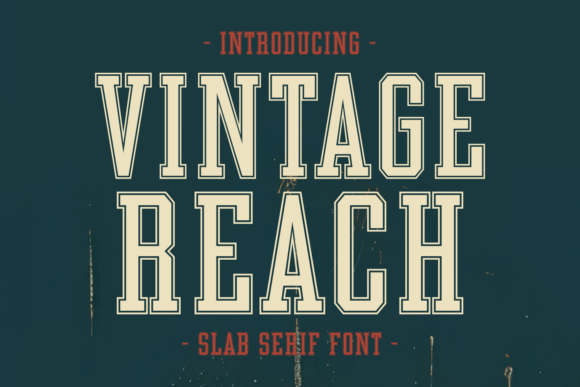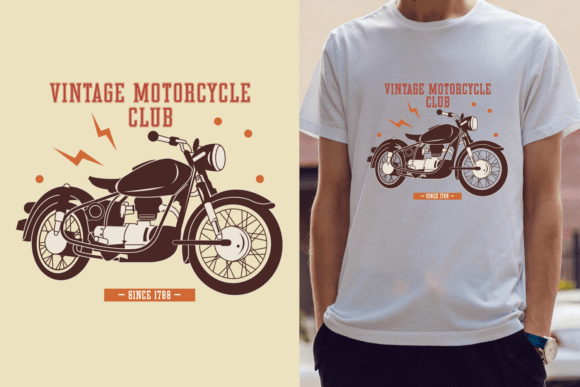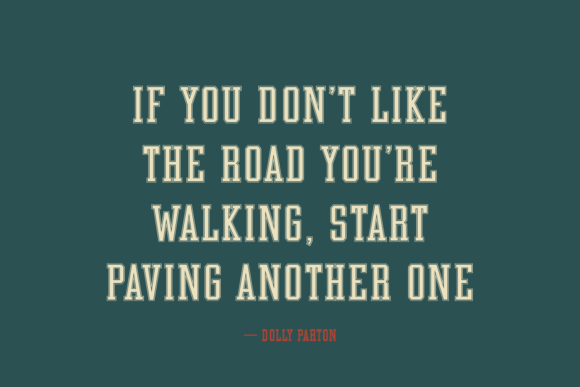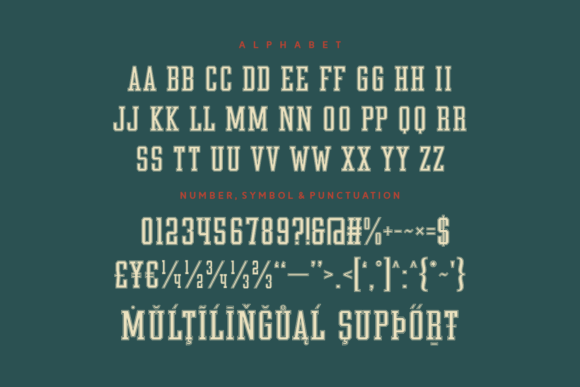
Vintage Reach Font
Introducing “Vintage Reach”, a sturdy slab serif typeface that evokes a powerful sense of nostalgia. With its roots firmly planted in the aesthetics of the 70s, 80s, and 90s, this thick, old-style font heralds from an era gone by, yet has been skilfully modernised for today’s design landscape.
This gritty, grungy font also boasts alternative accents, infusing each letter with a unique twist, perfect for branding or typography projects. Its authentic character makes it the perfect choice for apparel design, with its bold presence guaranteed to make a statement on a T-shirt or sublimation print.
Whether you’re designing a book cover, drafting a magazine layout, or capturing a sentiment in a greeting card, “Vintage Reach” is a versatile typeface, designed for clarity and readability. It’s equally at home in a crisp, clean design approach or a more eclectic packaging style.
Attention to detail is evident in its carefully considered kerning and leading, making it more than a mere typeface, but a work of art. Whether your project calls for a quote font or a logotype, “Vintage Reach” can easily adapt to suit your needs.
With an expansive list of multilingual support covering Eastern European languages, this font is as inclusive as it is beautiful, effortlessly intertwining trendy aspects with a seasonal edge.
Step into a bygone era with a modern take, and embrace the charm and grandeur of “Vintage Reach”.